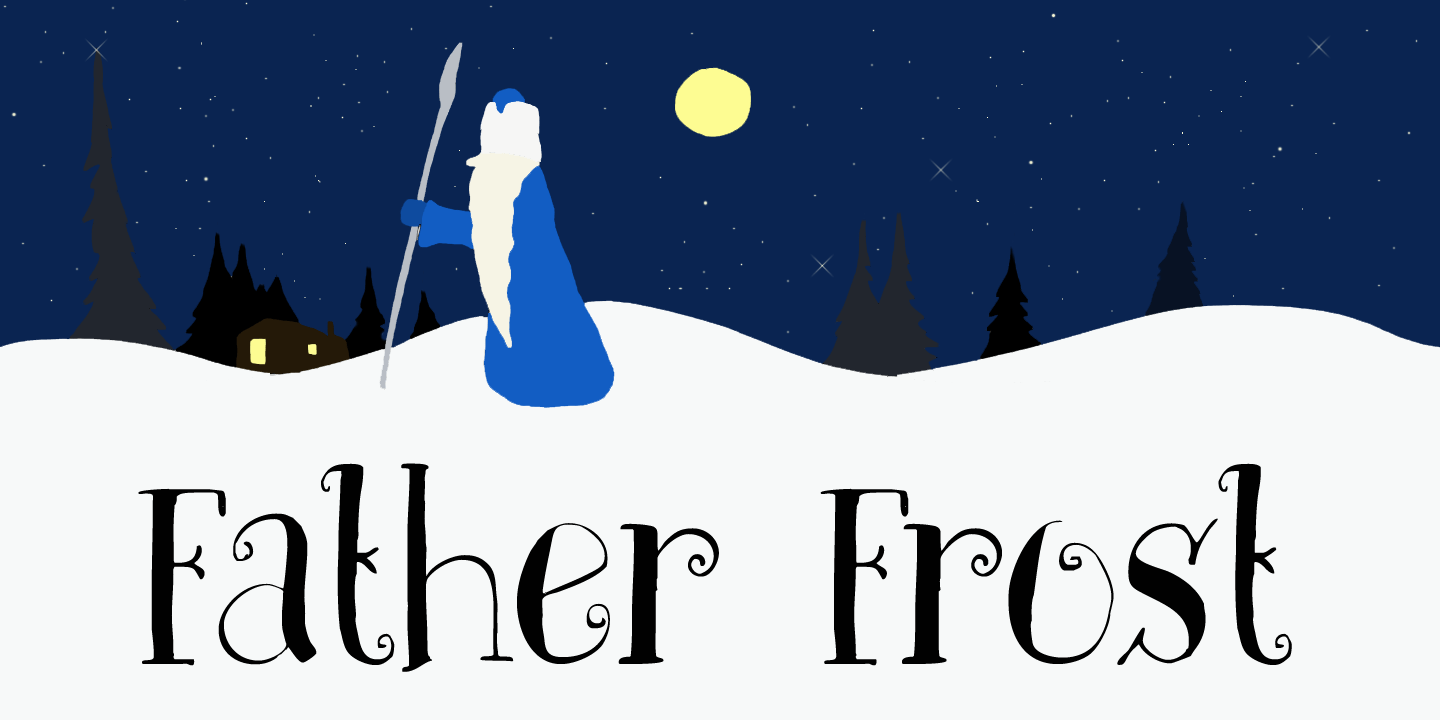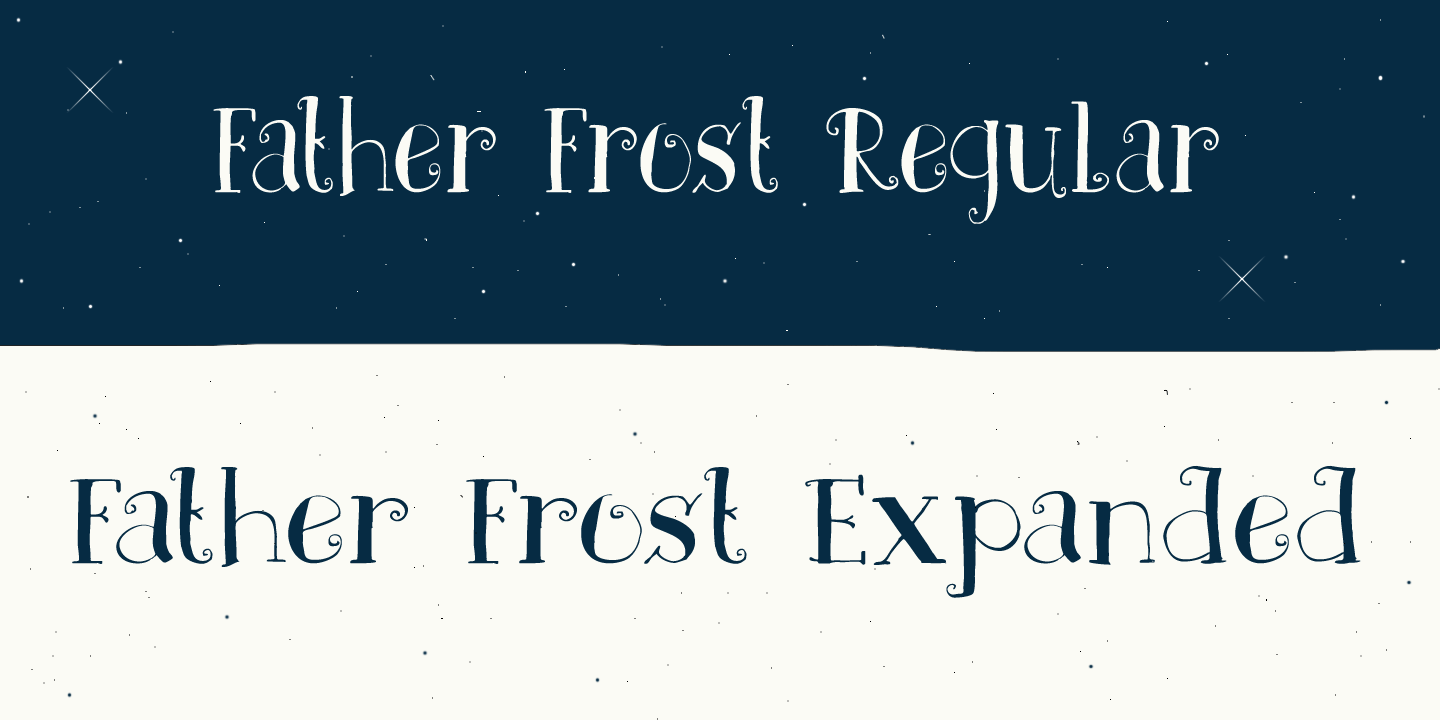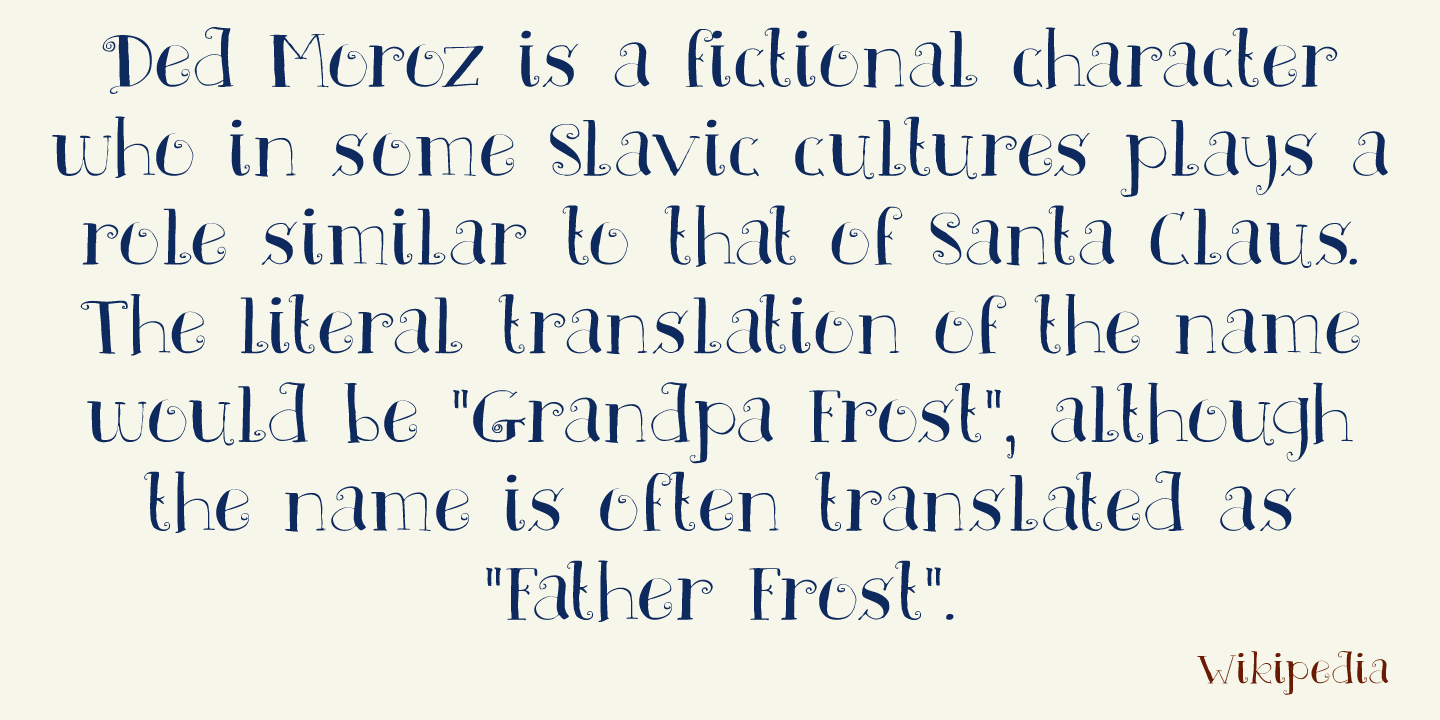
Father Frost
Father Frost, or Grandfather Frost is the Santa Claus of Slavic countries. He used to wear a red coat, like his ho-ho-ho colleague, but when that was deemed too Bourgeois and Western by the Soviets, he changed into a blue coat.
Father Frost is a very happy, very legible font, ideal for Christmas cards, posters and ads! Father Frost comes with a bagful of language support.